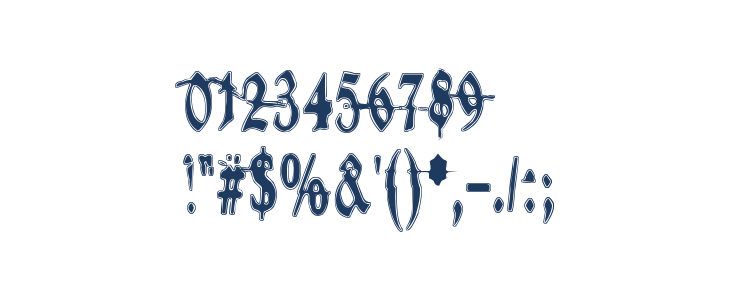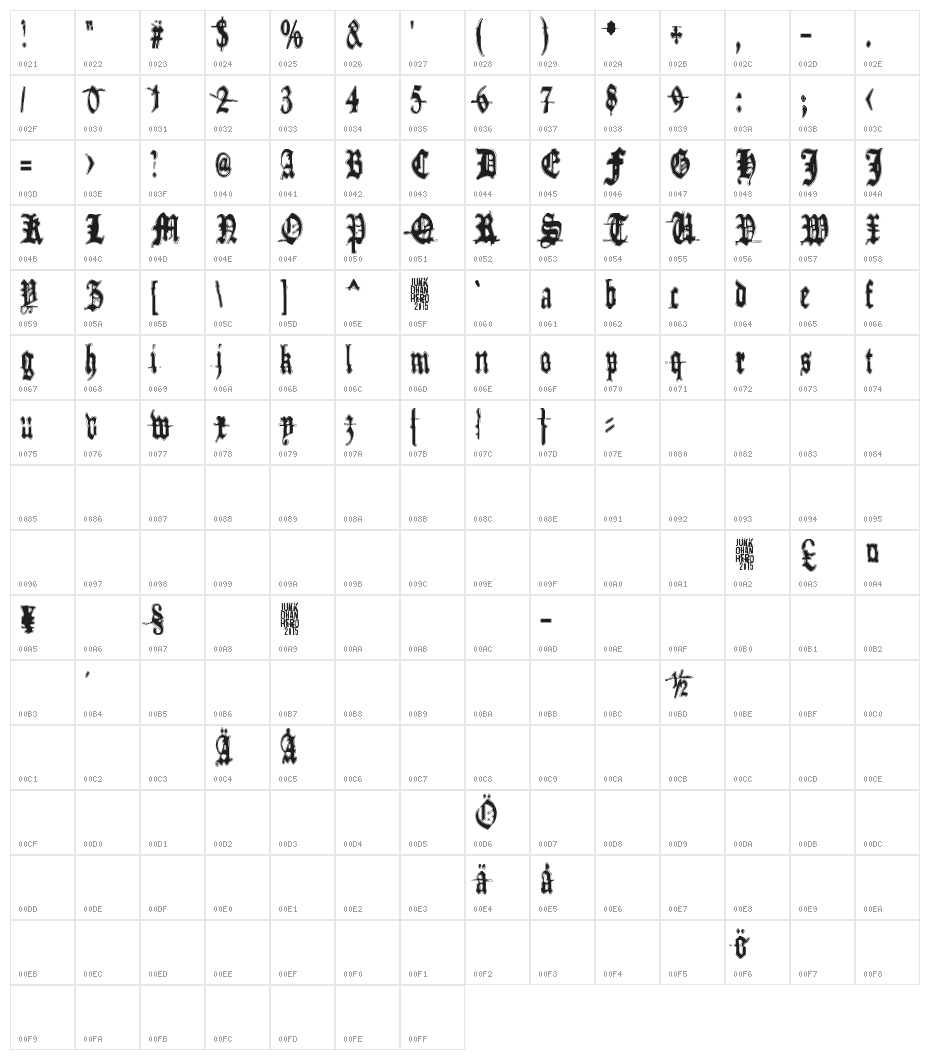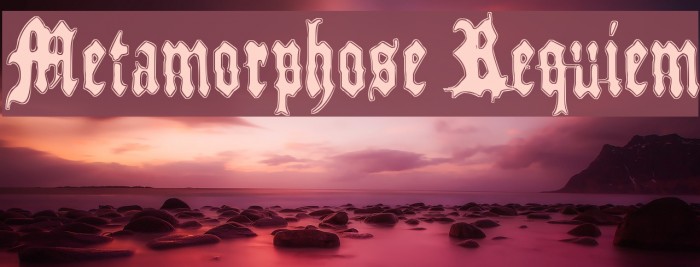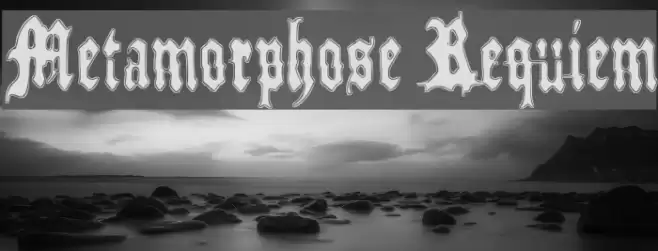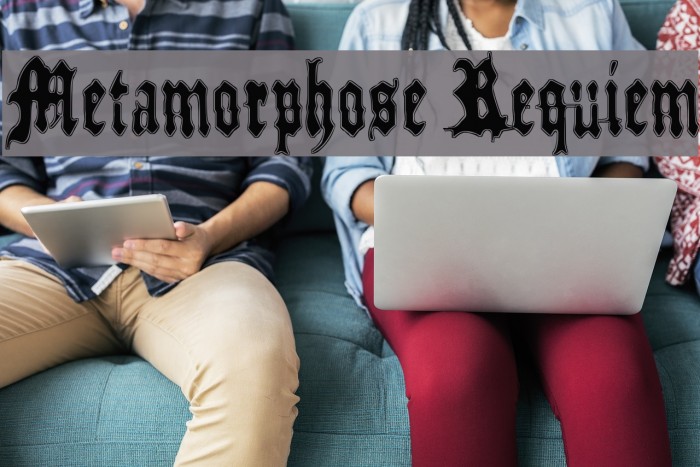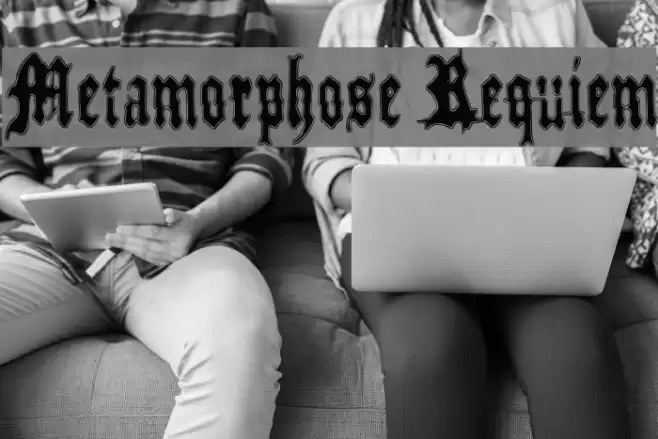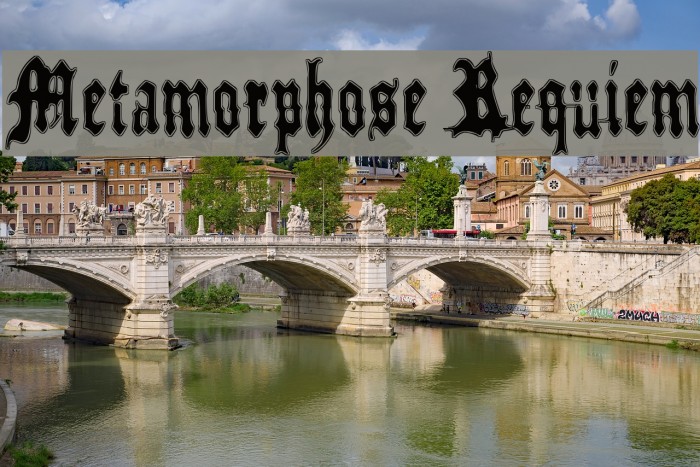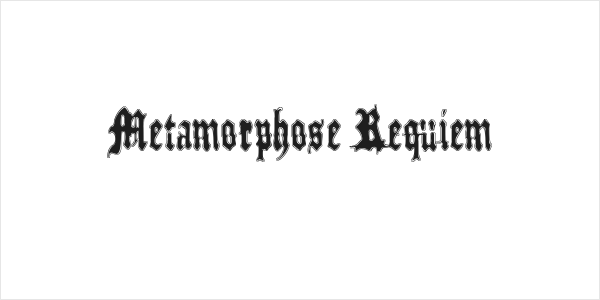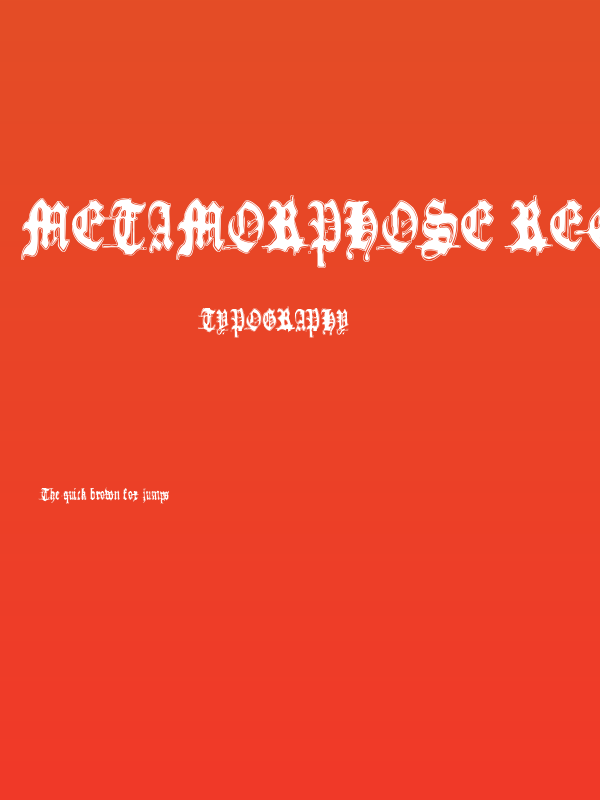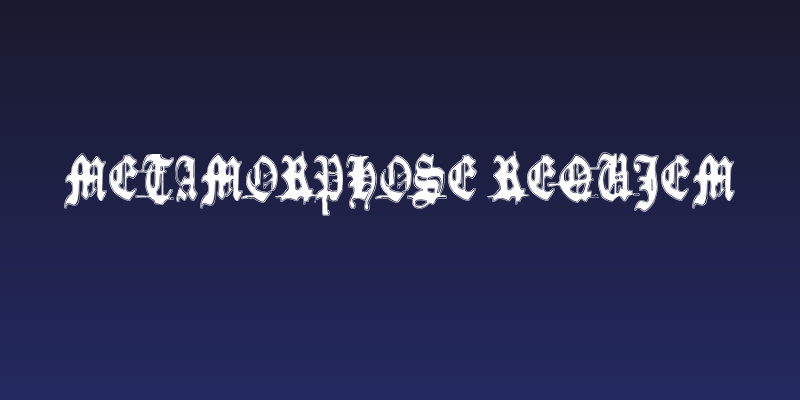
Metamorphose Requiem Font
Metamorphose Requiem Description
This font exhibits a bold and intricate design, reminiscent of traditional Gothic or Blackletter styles. The characters are ornate, with sharp, angular lines and elaborate serifs that give it a dramatic and historical appearance. The uppercase letters are particularly elaborate, featuring flourishes and embellishments that enhance their visual impact. The lowercase letters maintain the same stylistic elements but are slightly more subdued, offering a balance between readability and decorative flair. Numbers and special characters are designed with the same attention to detail, ensuring consistency across the entire typeface. This font is ideal for projects that require a touch of elegance and historical charm.
| Use Case | Headlines, Logos, Decorative text |
| Proposed Projects | Suitable for use in historical-themed designs, book covers, posters, and branding that seeks a classic and dramatic aesthetic. |